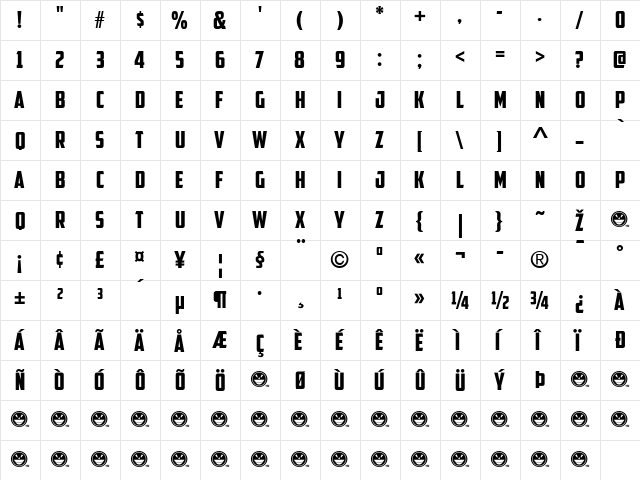
American Captain Regular
Design Context for American Captain Typeface
American Captain offers clean, dependable letterforms without strong stylistic allegiance, making it a practical choice for designers who need flexibility.